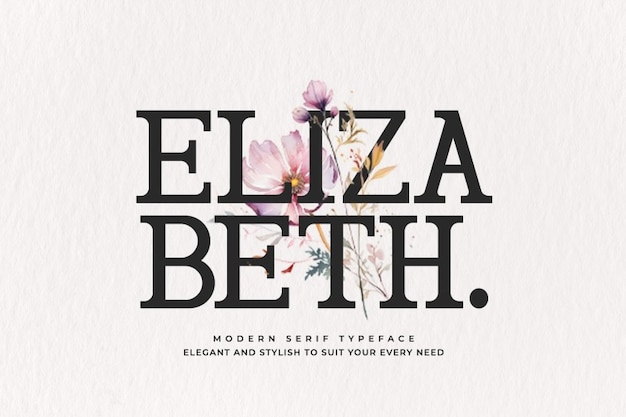
Elizabeth Font
Elisabeth is a classy and modern font that exudes elegance and style. With its clean lines and sophisticated letterforms, it brings a refined touch to any design. Ideal for luxury branding, high-end invitations, or editorial layouts, Elisabeth adds timeless beauty and contemporary charm, making it the perfect choice for stylish, upscale projects.